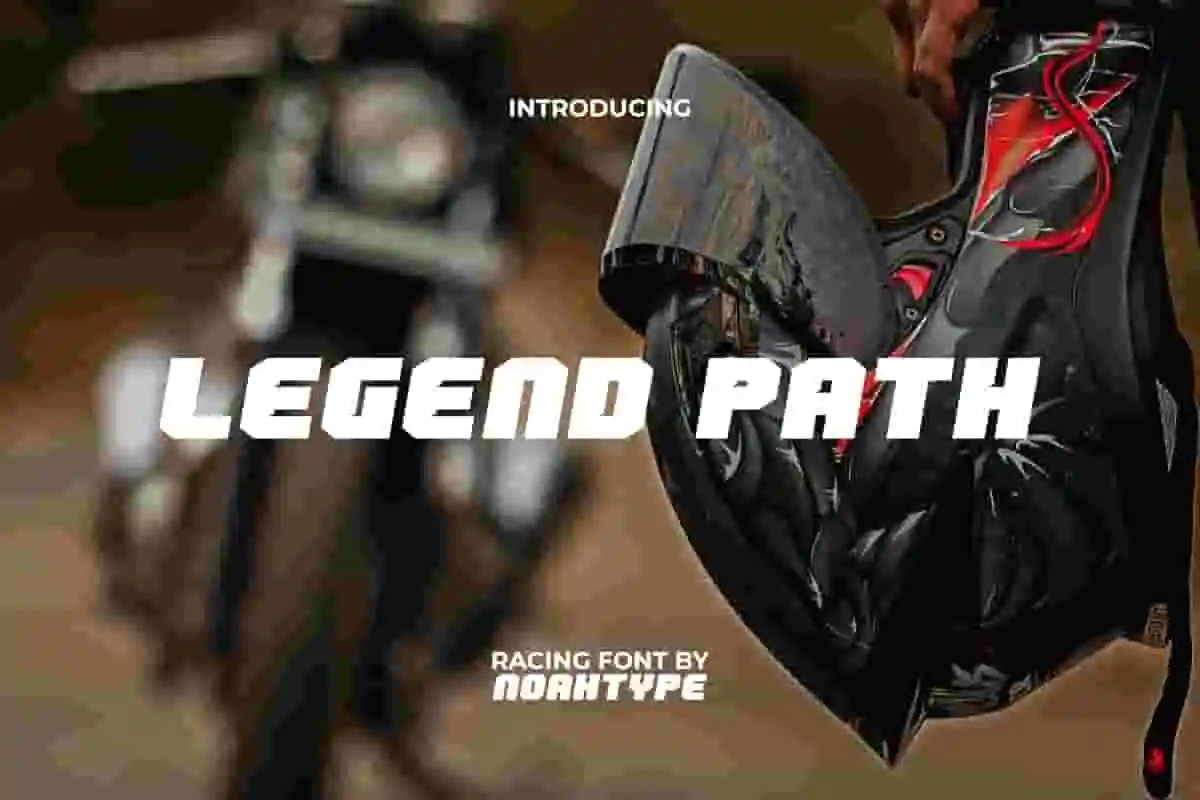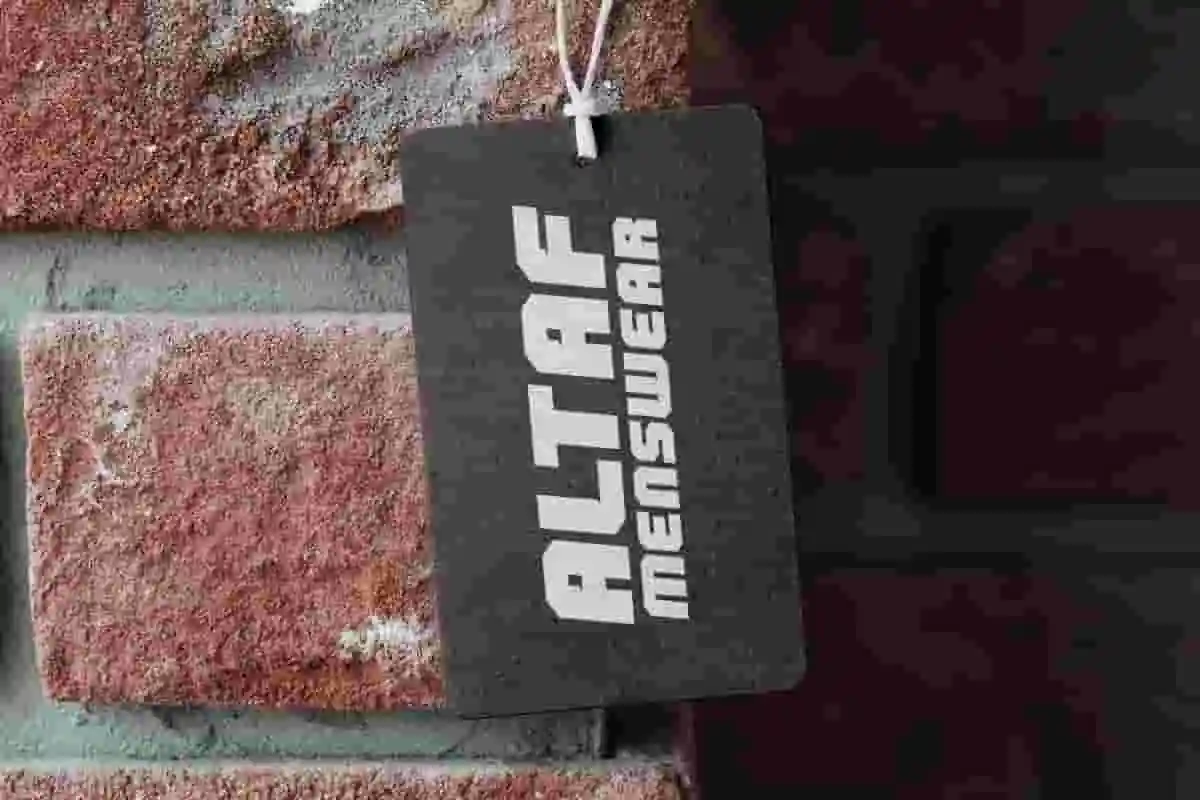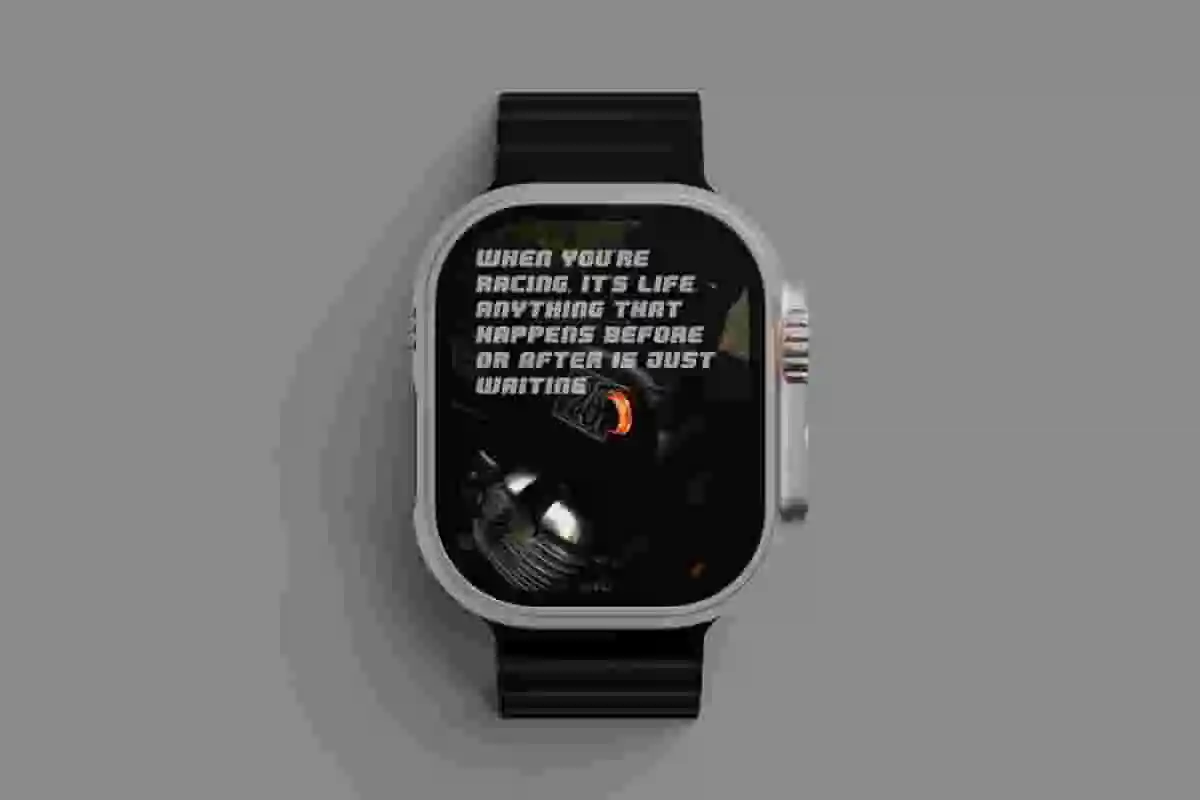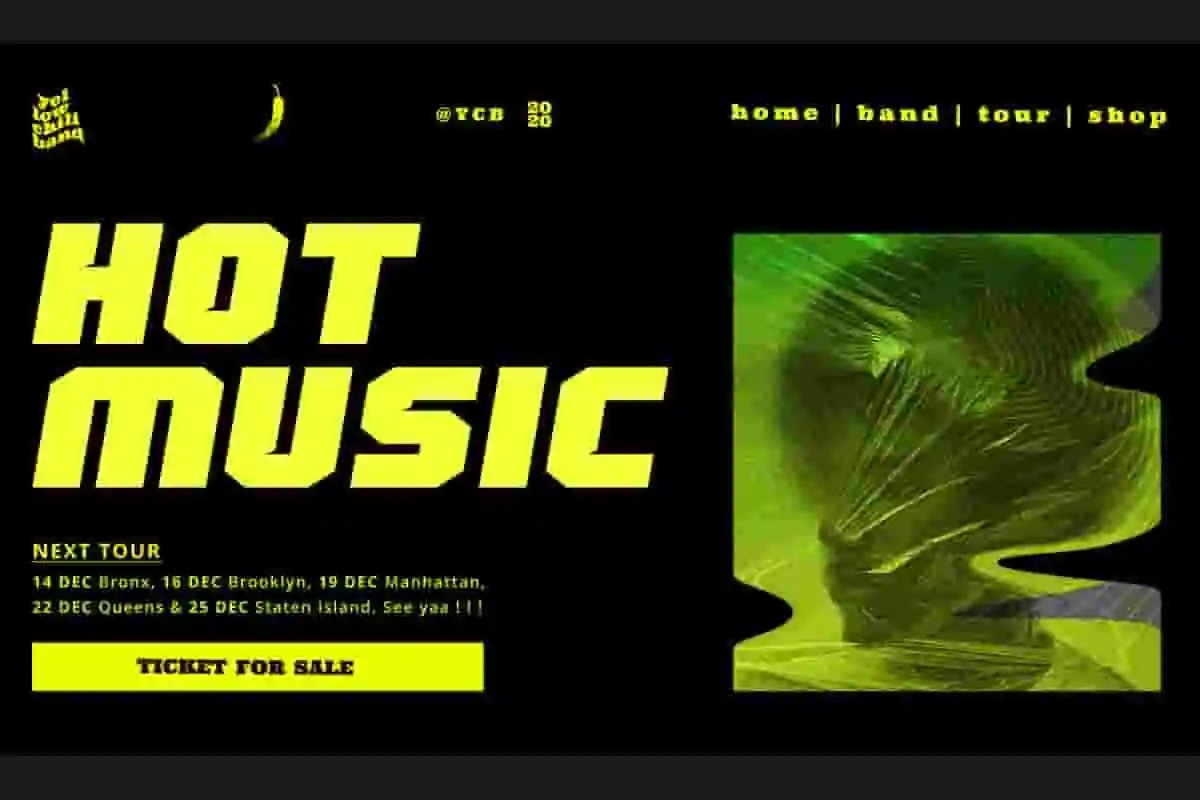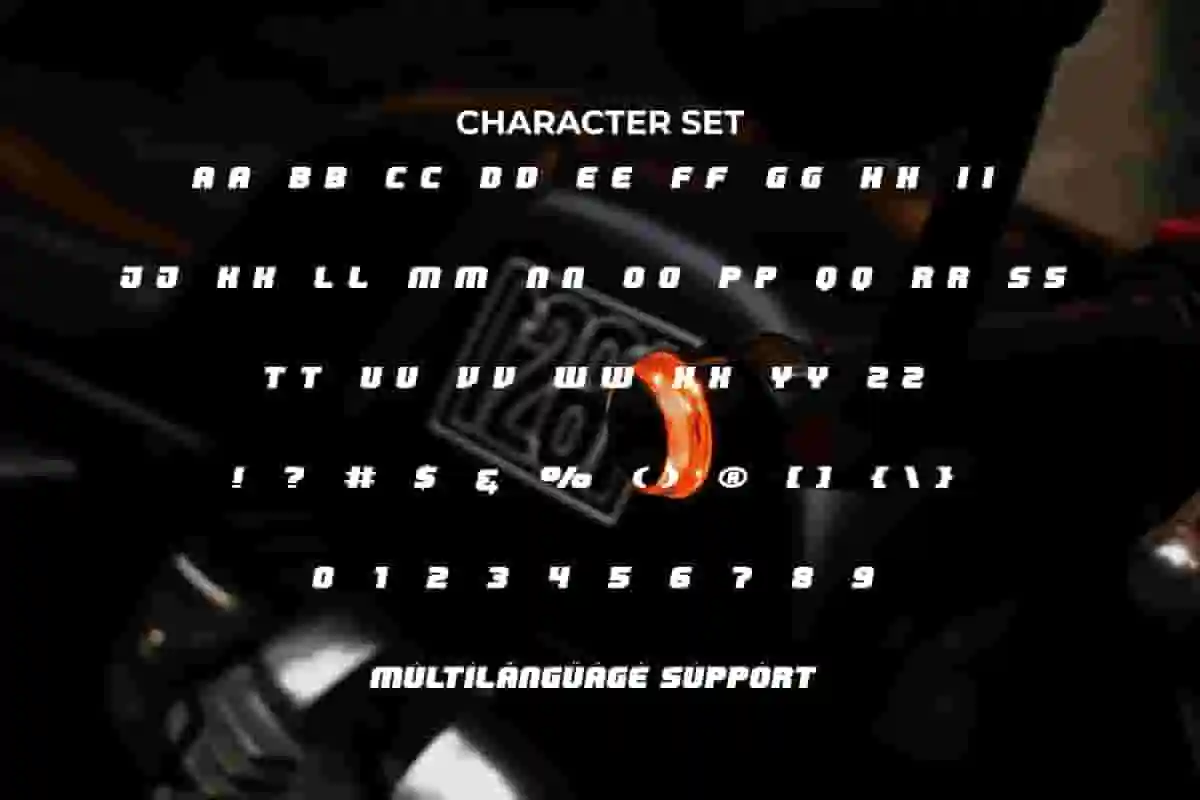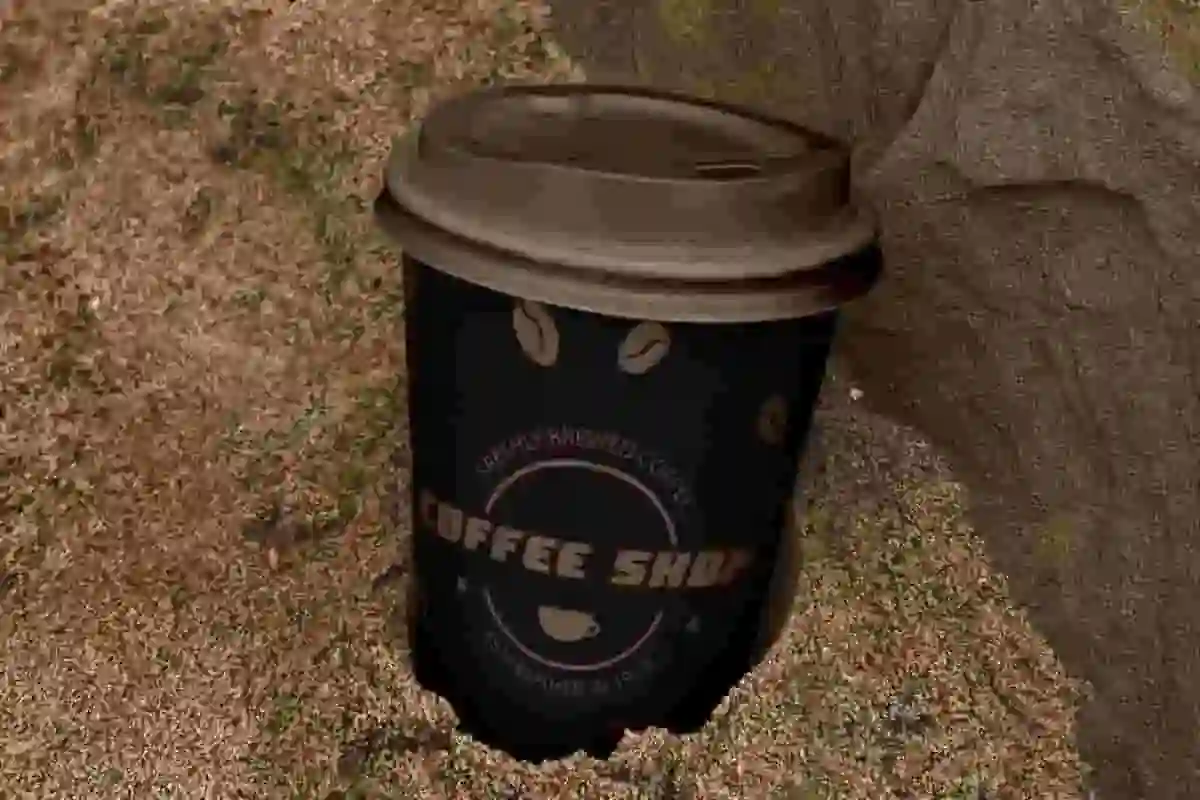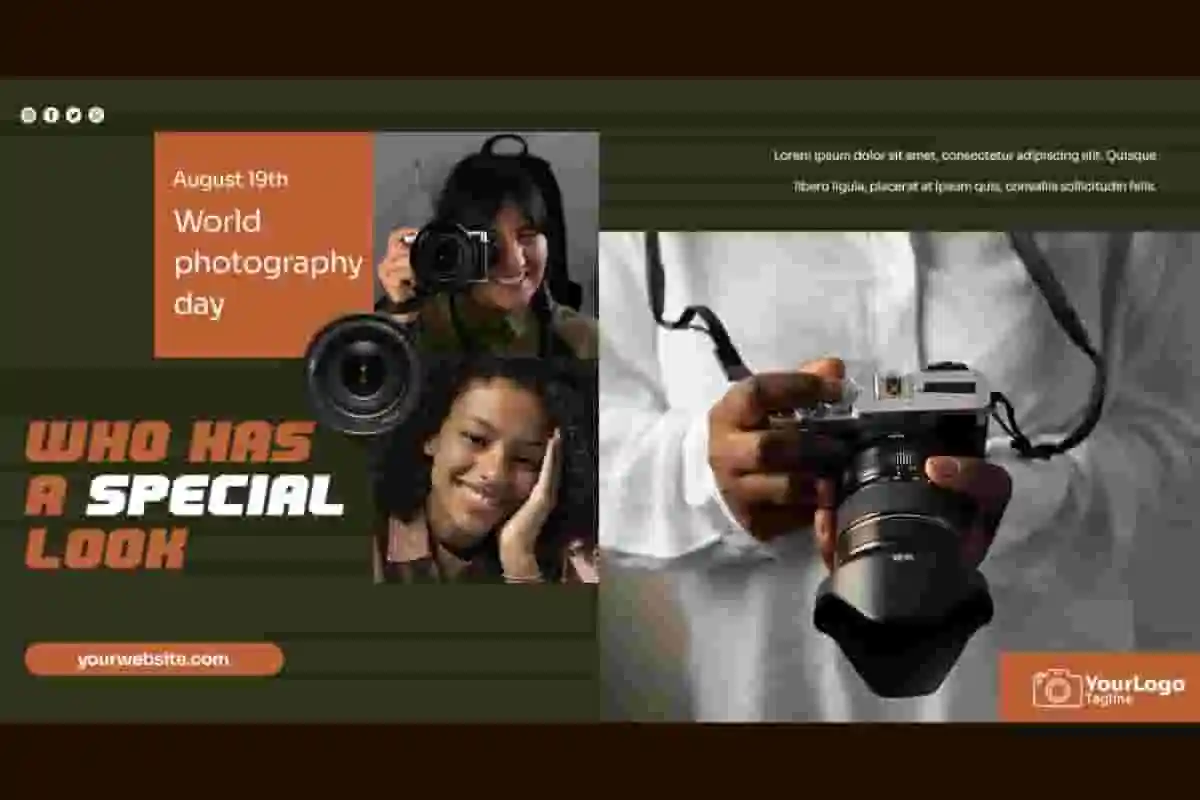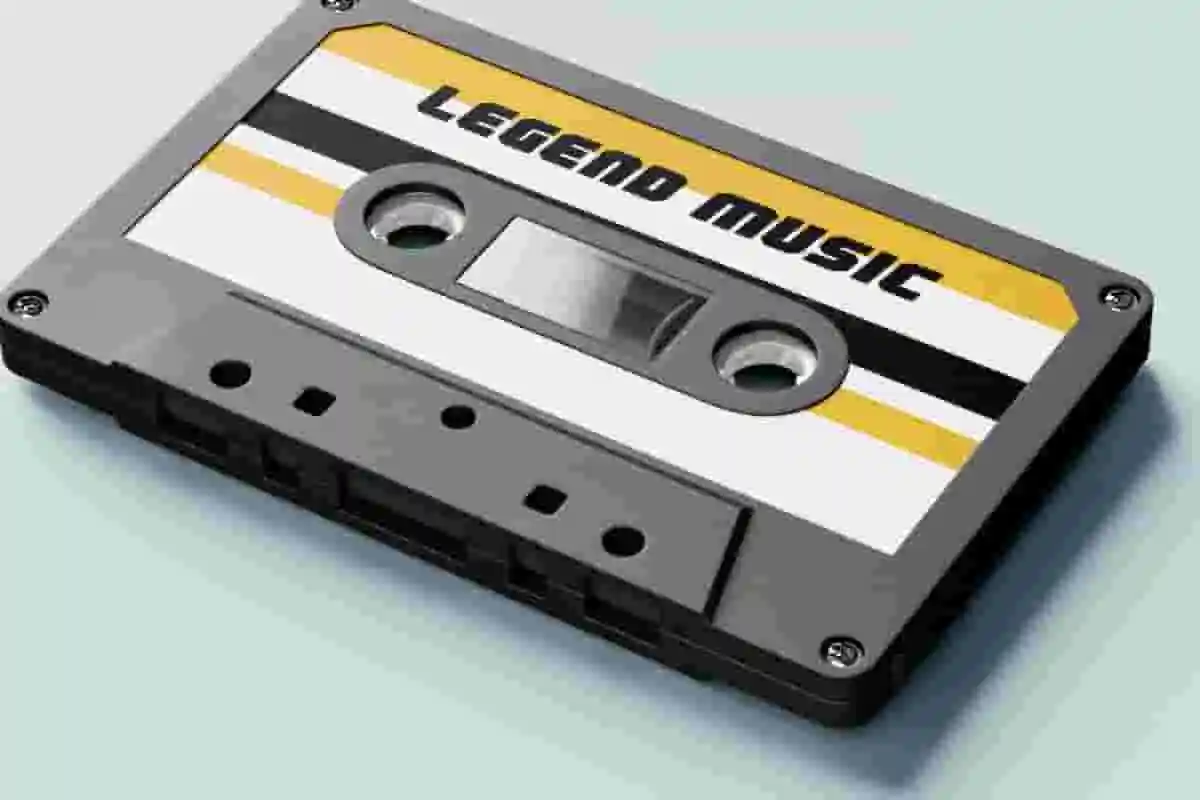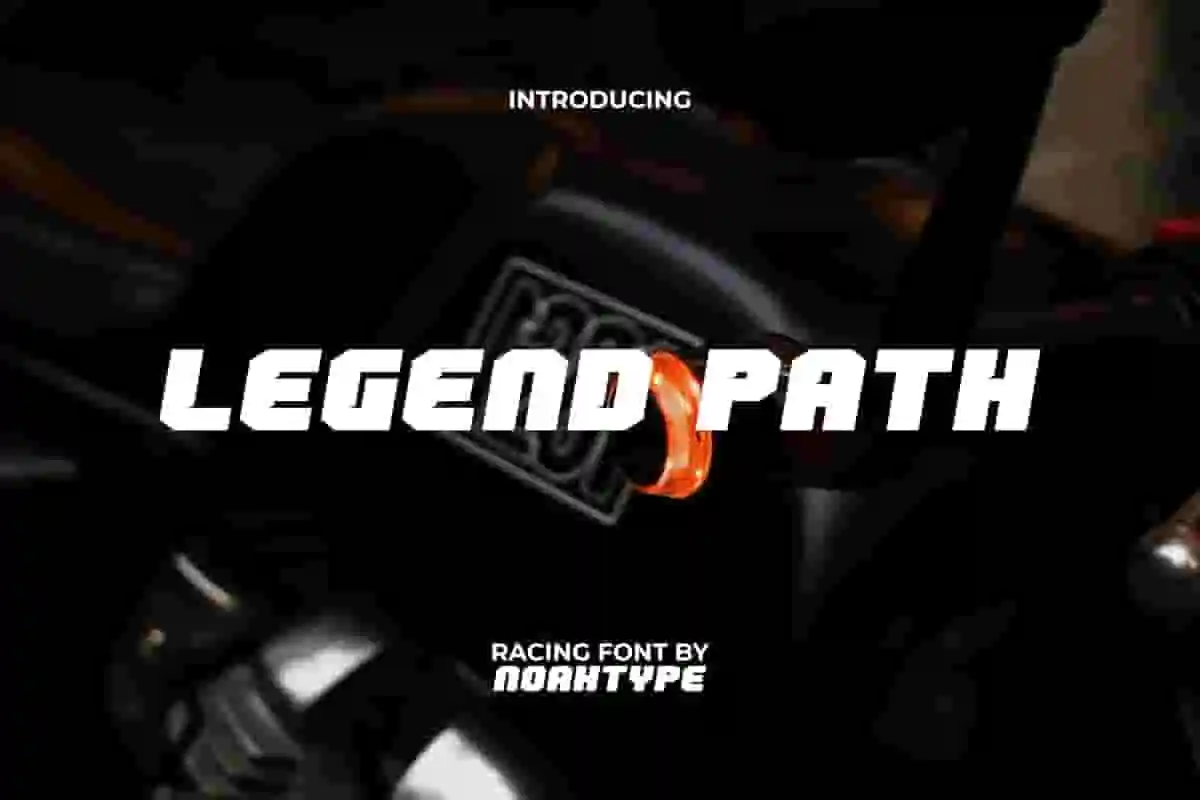
Legend Path Font is an all caps strong sports display font by NoahType. This font has a modern and dominant style so it can make the design stand out. This font will be suitable for a lot of projects, such as custom design, stationery, label, poster, signage, catalog, cover, quotes, website, and more!
Legend Path Font includes full set of Uppercase and Lowercase Basic Characters, Numerals and Punctuation. This awesome font will make you believe it is the perfect choice for many industries, such as sports, racing, game, automotive, fashion, advertisement, café, event organizer, printing, publishing, etc.